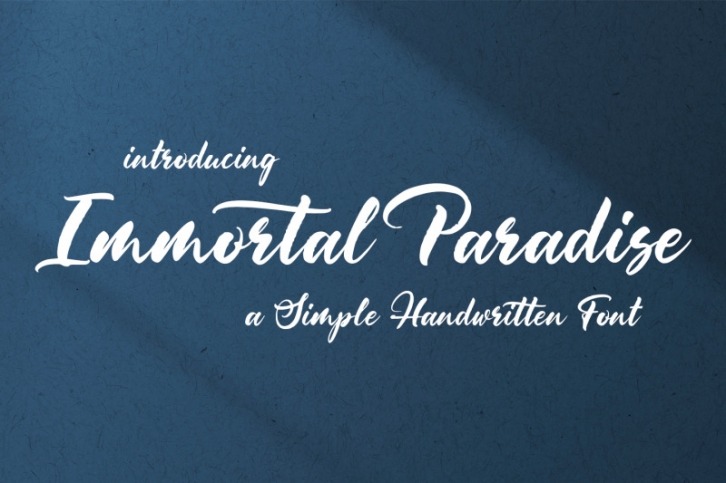
introducing
IMMORTAL PARADISE
-a simple handwritten script-
it is great for quotes, wedding card, logo, signature, t-shirt design, tote bag design, card, banner, social media, and anything your project that need elegant touch.